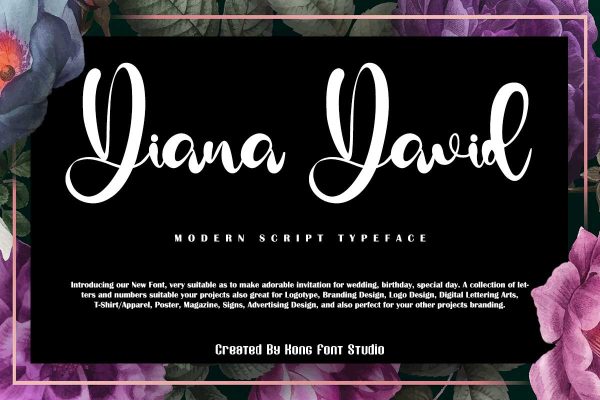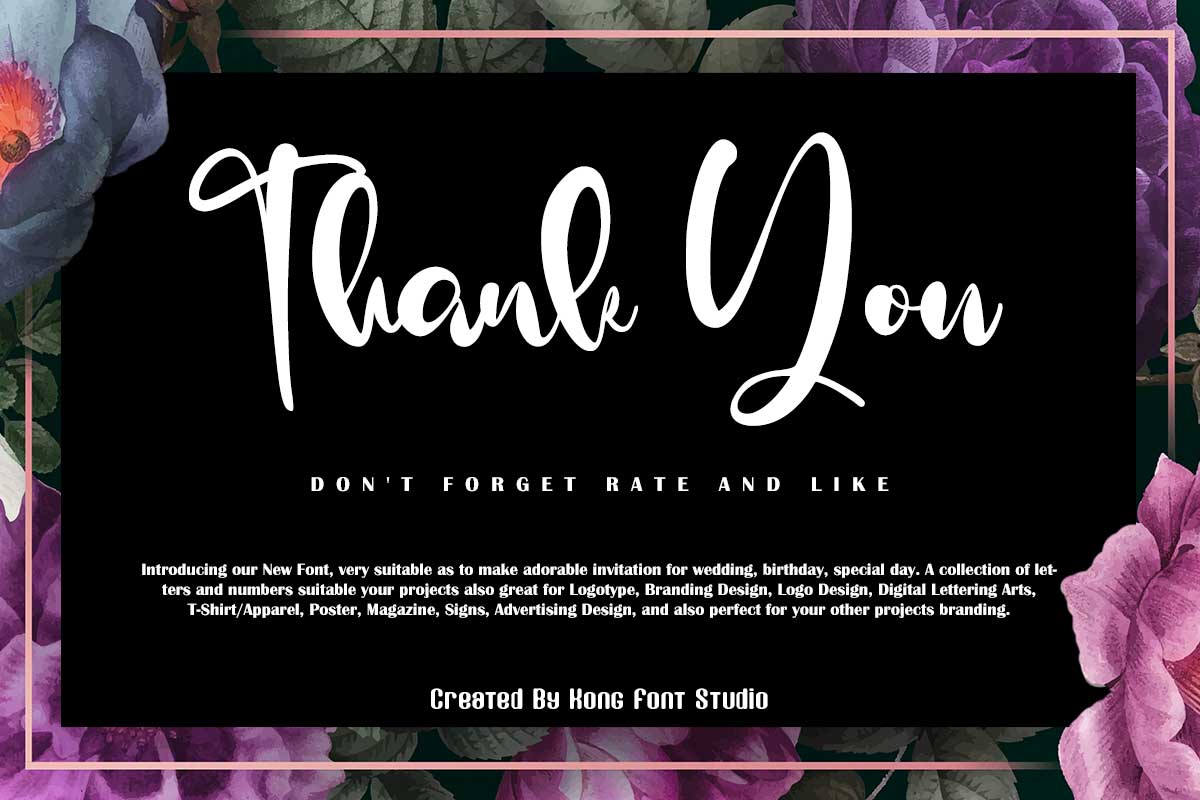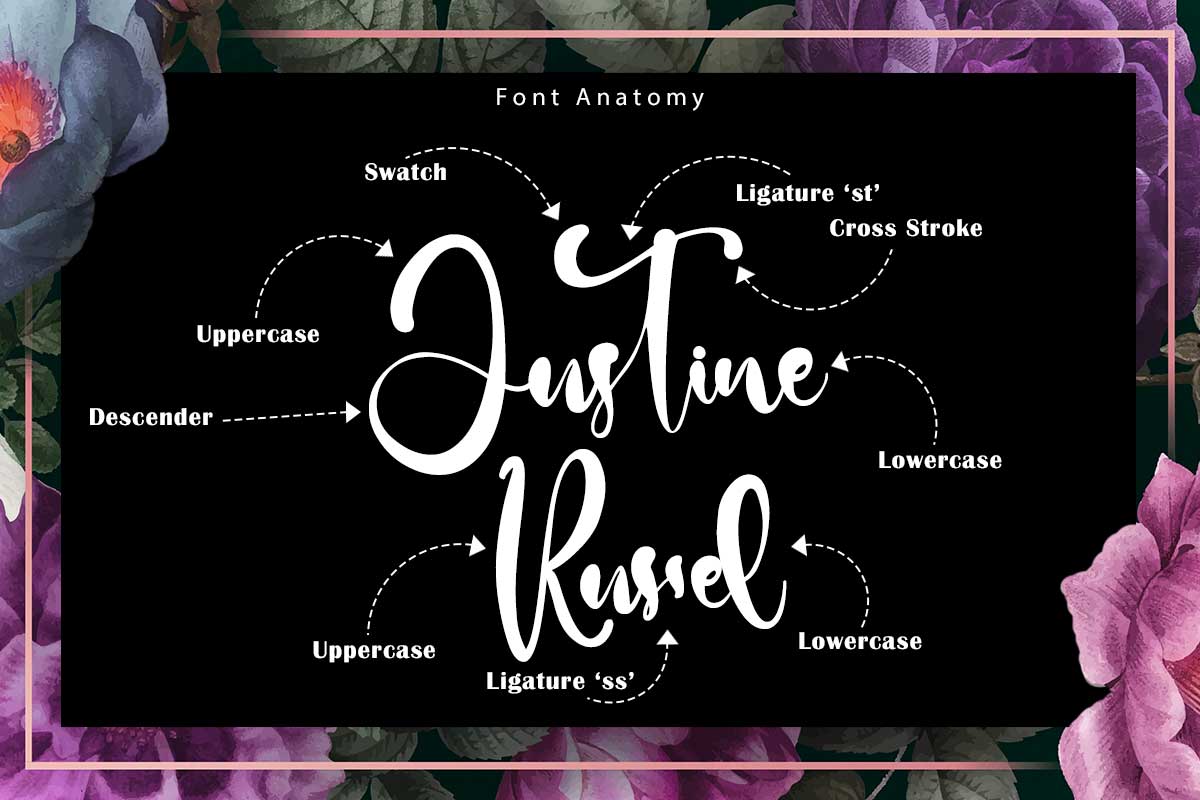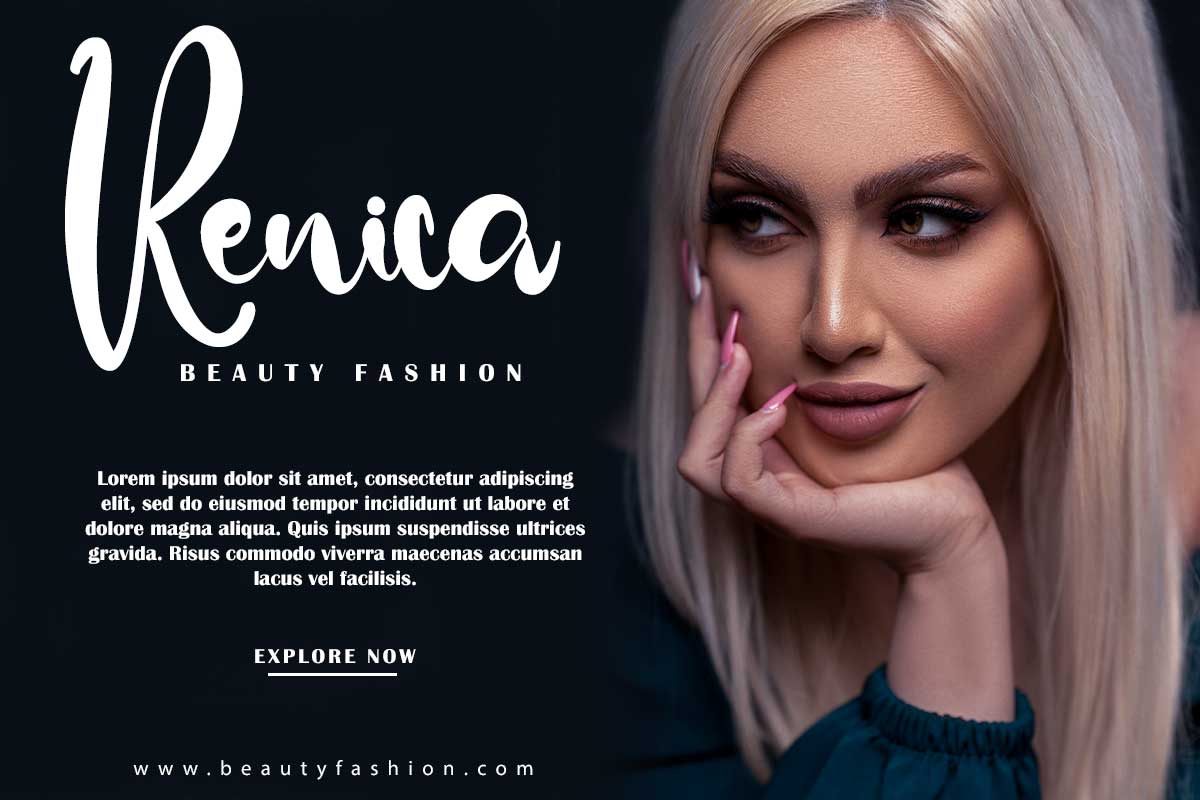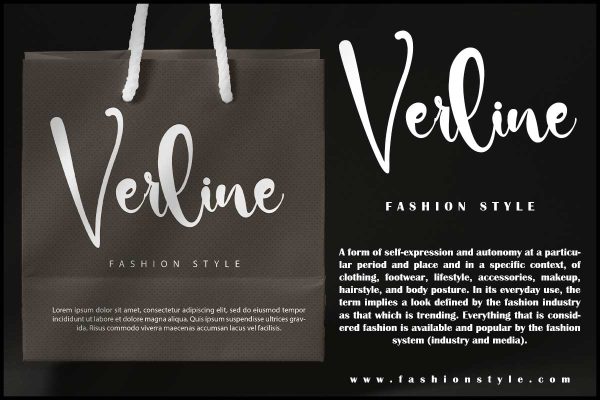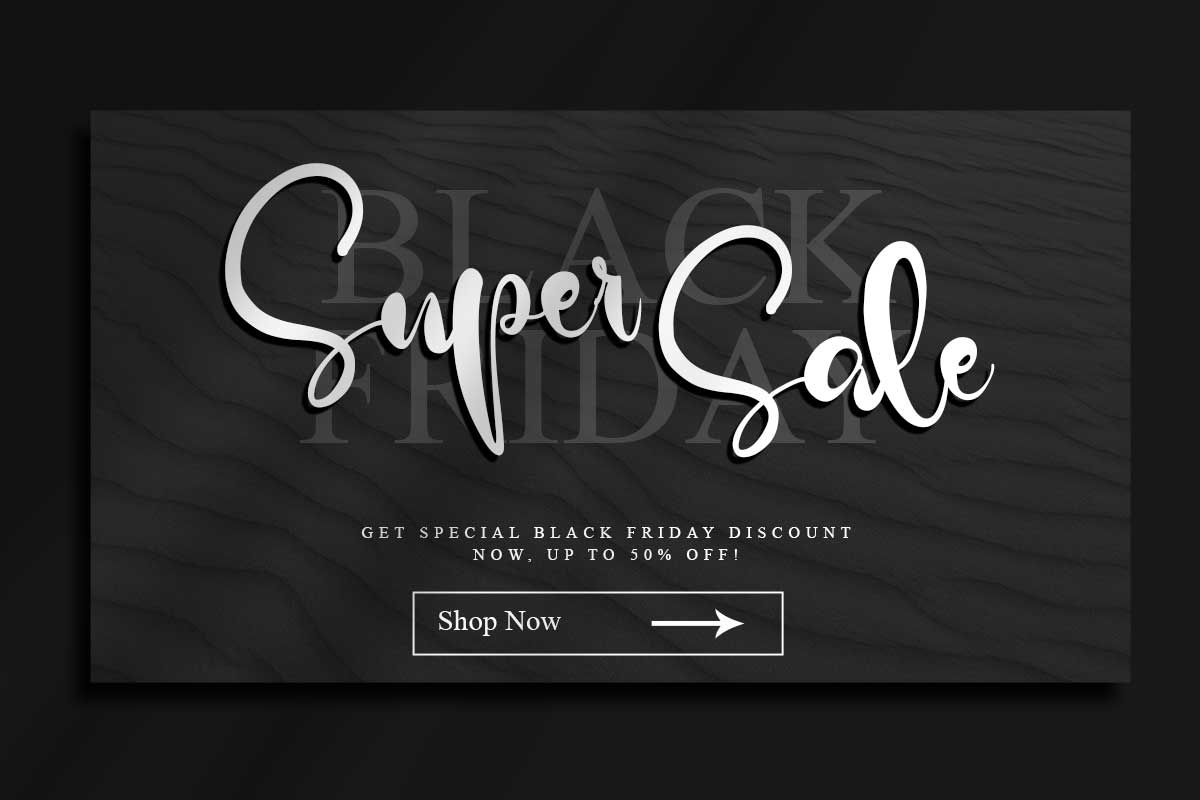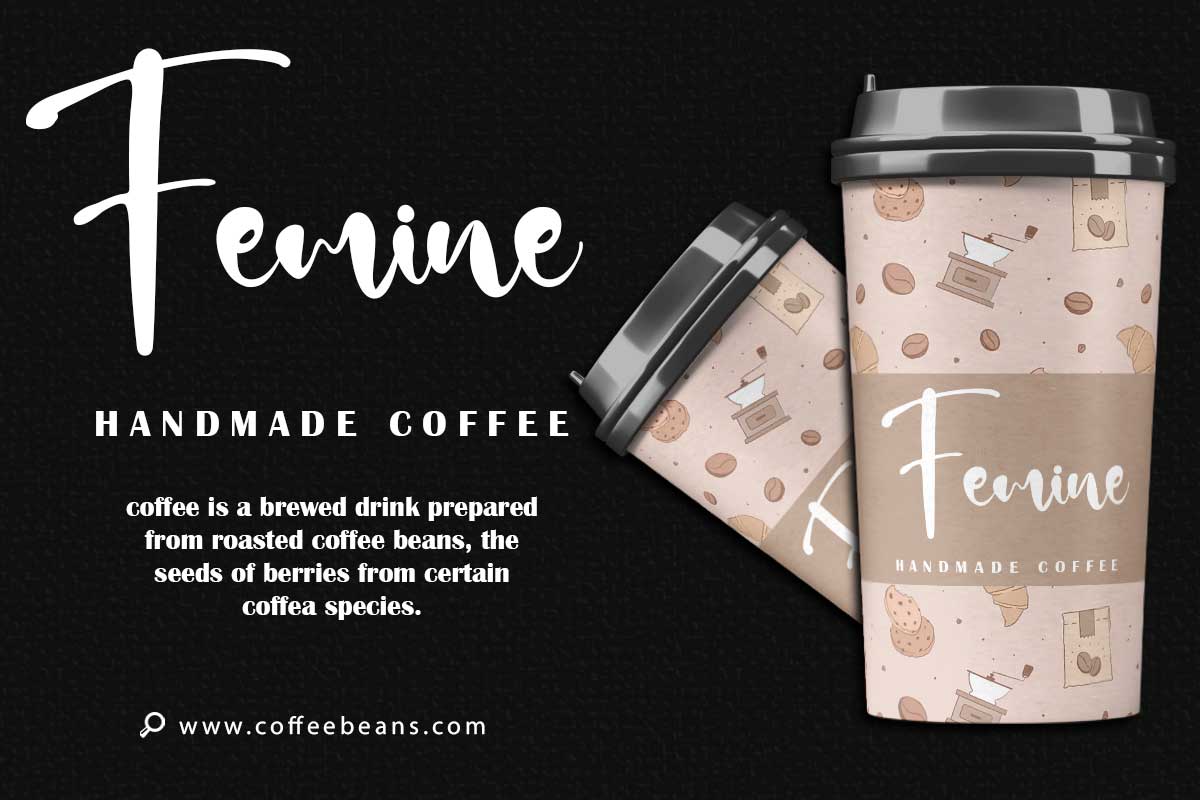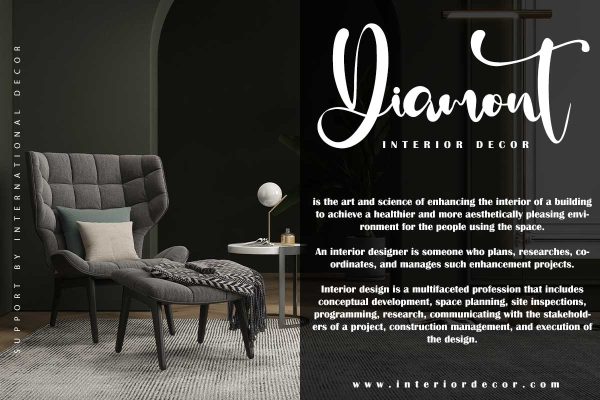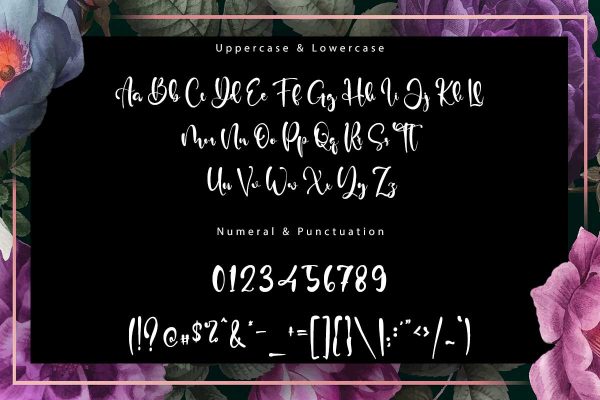
Diana David Classy Script Font is a type of Brush font family. It is one of our non-script brush font collections. This typeface is a font type that uses brushes in its creation. Diana David Classy Script Font looks very artistic and has a solid hand-made impression in its style. The rough edges and scratches on the font design add so much more to the font's aesthetic and modern impression. At the same time, these facts make Diana David Classy Script Font one of the best choices to put on modern lifestyle tools. Diana David Classy Script Font can be used to design graffiti, a mural, wall-paint art, skateboard art, or other types of street-inspired designs. Artworks on clothing items or merchandise such as t-shirts, motorbikes, or helmet stickers can also use the Diana David Classy Script Font as part of their design. The suitability of the Diana David Classy Script Font against many things shows this font that must be taken into appeal and determine which font to use. Our scrip and signature fonts is compatible for use as Figma fonts, Canva fonts, Freepik Fonts, and Adobe Fonts. They also work as Windows Fonts and Apple Fonts. For your social media needs, you can use and install the fonts in our collection of brush typefaces to use as Instagram Fonts, Facebook Fonts, and Twitter Fonts.